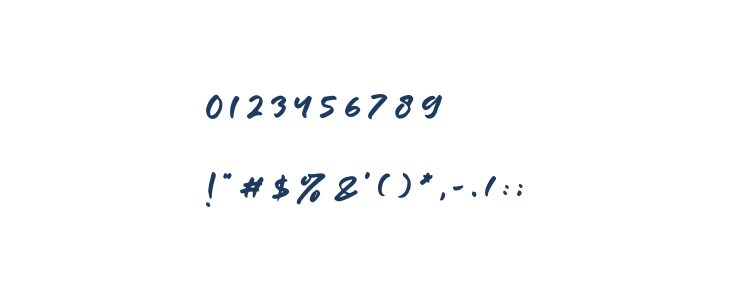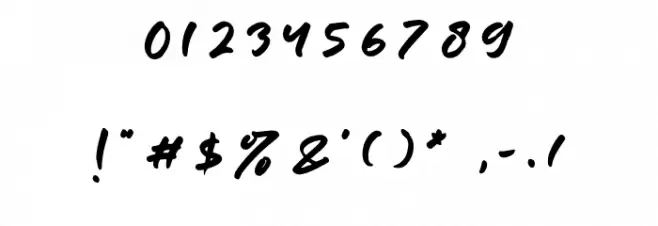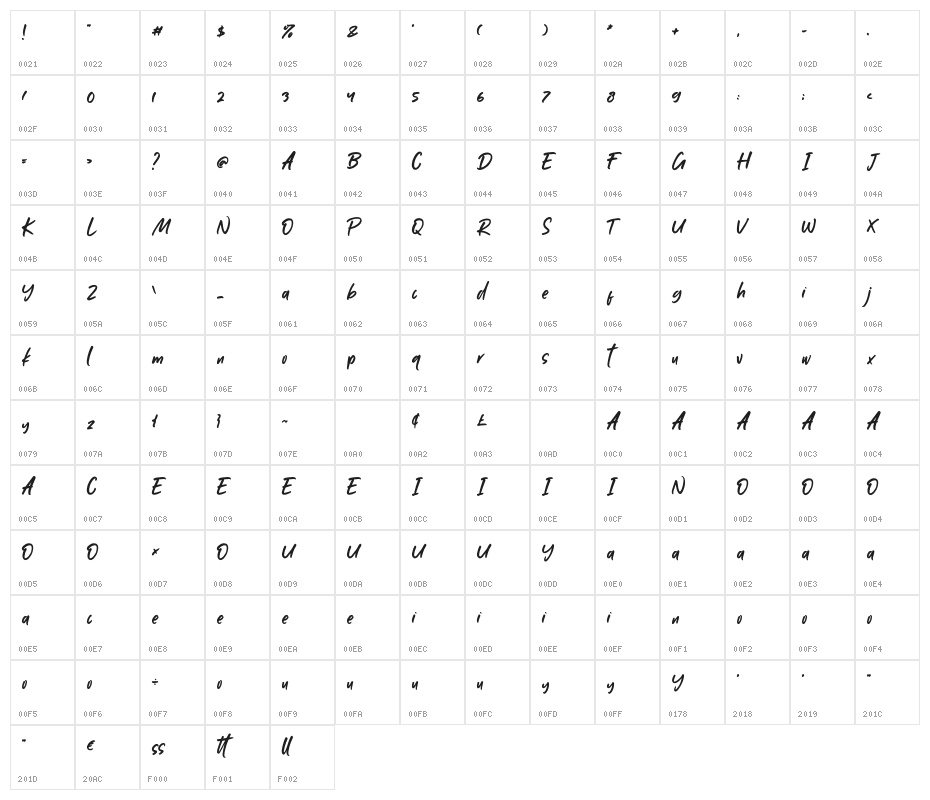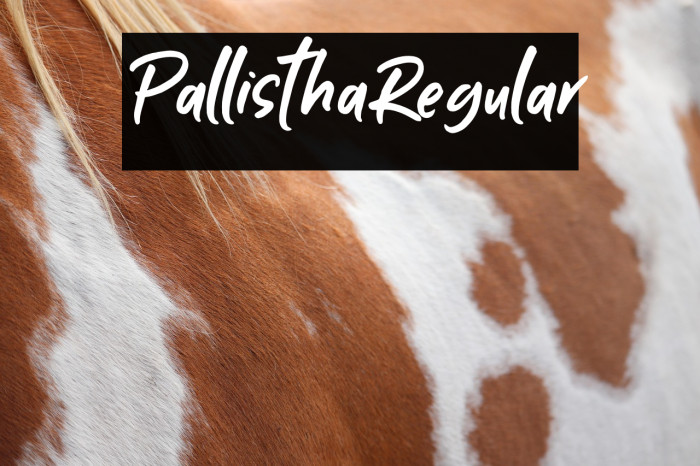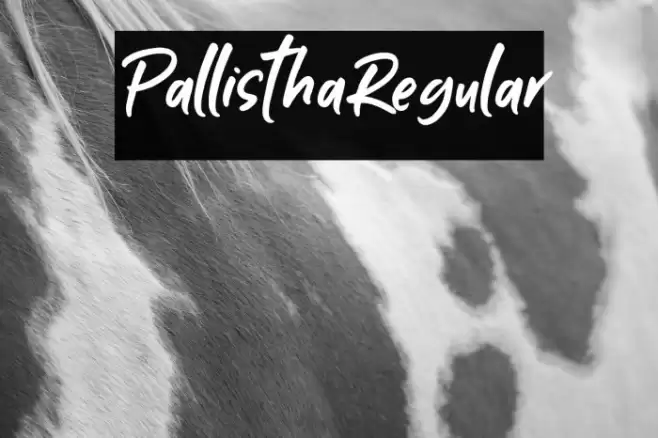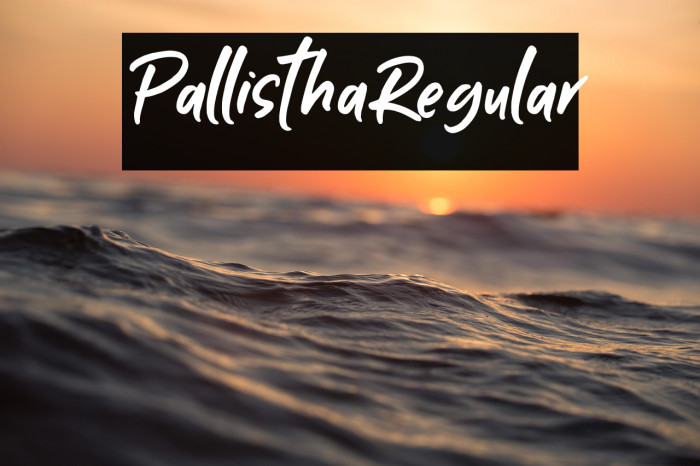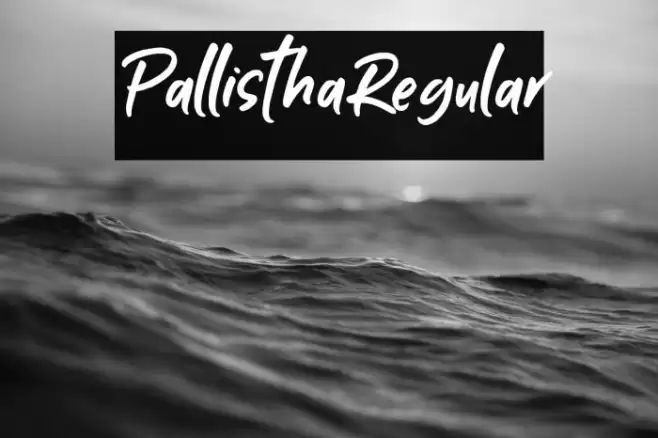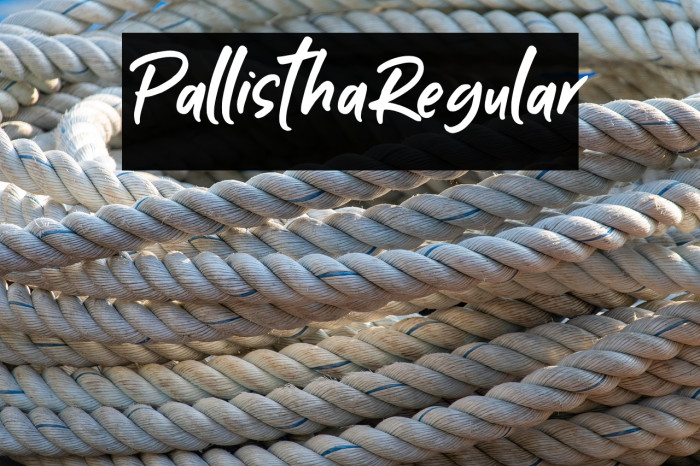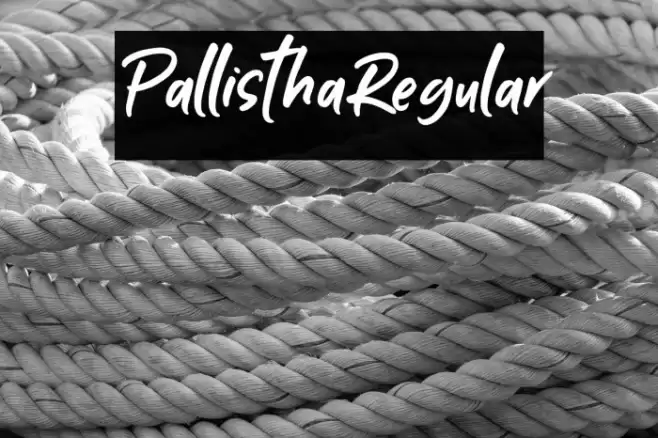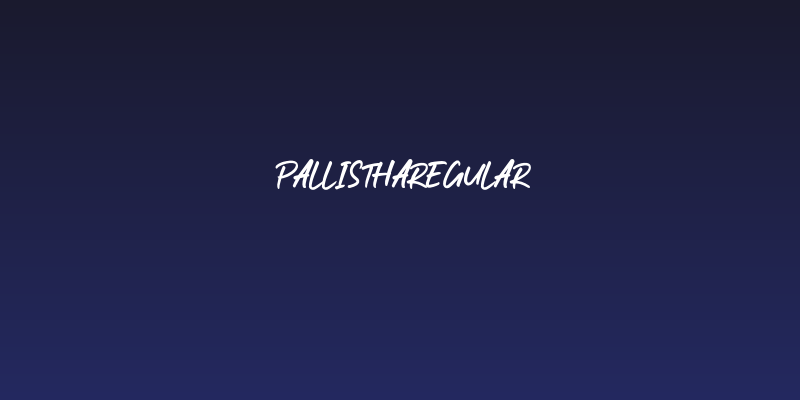
PallisthaRegular Font
PallisthaRegular Description
This font exudes a casual and artistic flair, characterized by its fluid and dynamic strokes that mimic the natural flow of handwriting. The letters are slightly slanted, giving a sense of movement and spontaneity. The uppercase letters are bold and prominent, while the lowercase letters maintain a consistent style with a touch of elegance. The numerals are clear and distinct, complementing the overall aesthetic. Special characters are thoughtfully designed, maintaining the font's cohesive look. This font is perfect for projects that require a personal touch, such as invitations, greeting cards, or creative branding.
| Overall Style | Casual, Artistic |
| Proposed Projects | Ideal for invitations, greeting cards, artistic branding, and personal projects. |